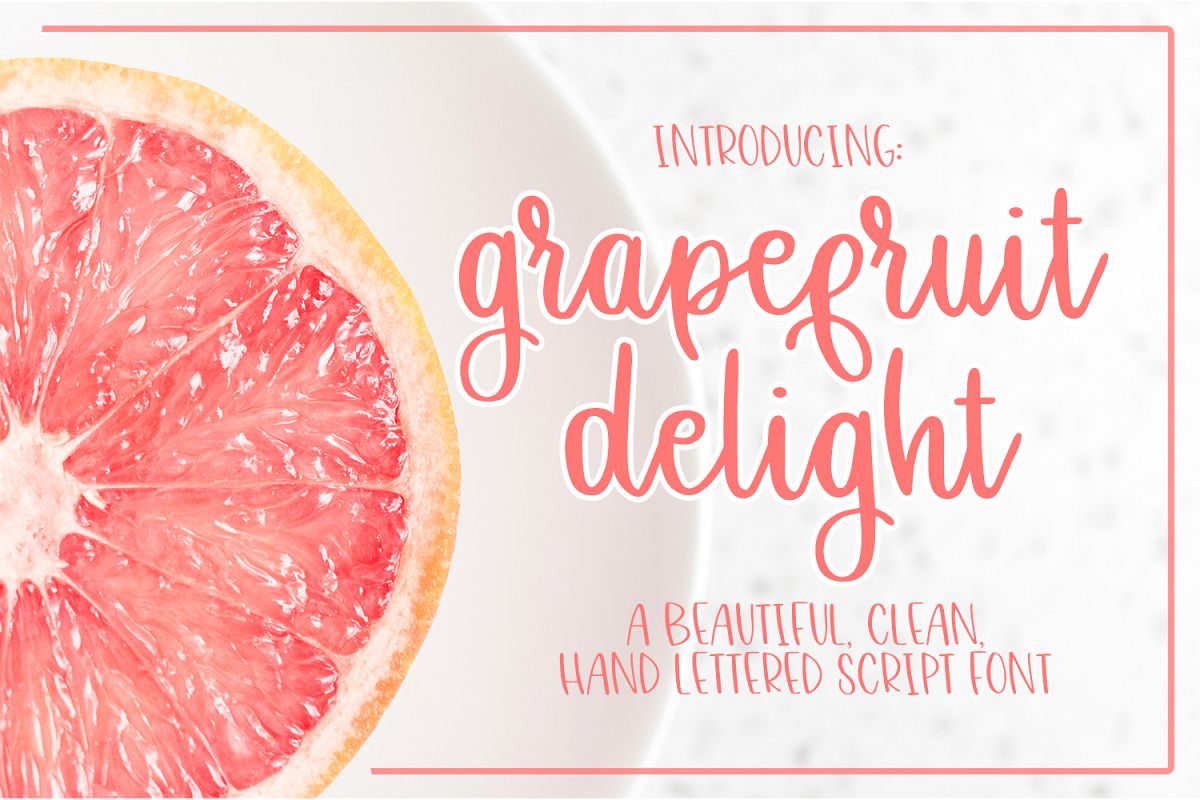
This listing comes with Grapefruit Delight Script, which has Uppercase, Lowercase, Numbers, Punctuation, and Ligatures.
This font is perfect for crafting and looks awesome on T-shirts, mugs, cards, invitations and so much more!